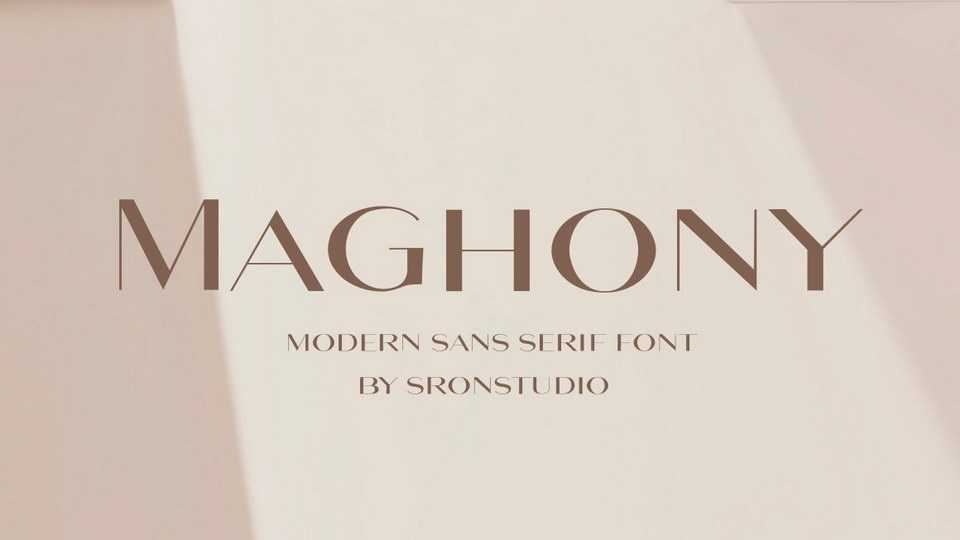
Download Maghony font, a modern high contrast sans serif typeface. Maghony font is perfect for branding, logo, wedding, fashion, media and editorial use.
Designer: Sronstudio